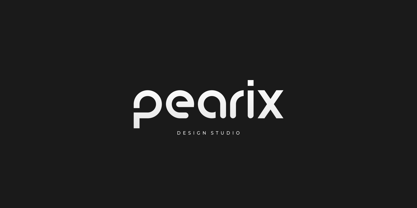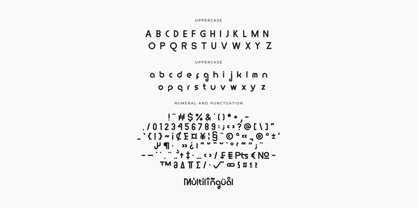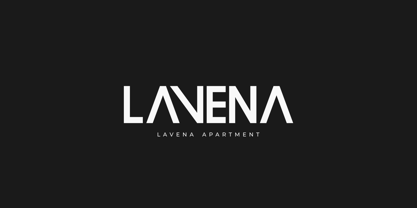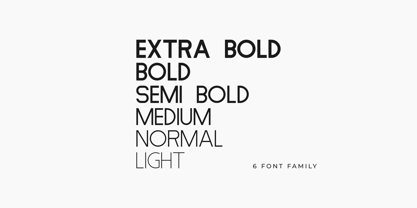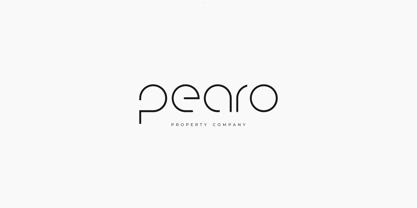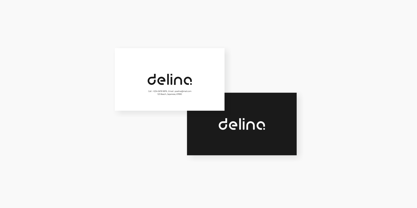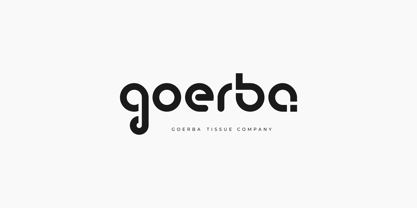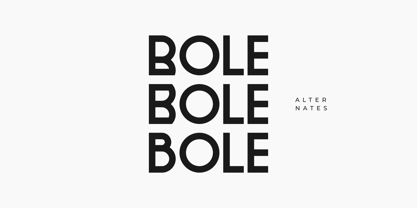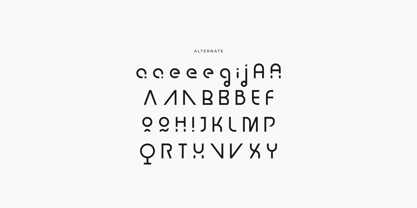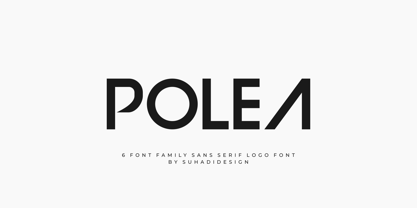
Polea
The Polea Font Family was designed by ahmad suhadi and published by suhadidesign. Polea contains 6 styles and family package options. More about this family
Polea - Modern Logo Font
In response to market demand, I created a minimalist sans serif font that is modern, elegant, and cool. Therefore, I decided to create this sans serif font. Polea is a minimalist sans serif font presented in a modern style, making it a market favorite. We keep this font elegant, classy, modern, stylish, up-to-date, and easy to use. Polea is a great choice for logos, labels, fashion, posters, banners, bags, brands, fashion, brand names, branding, quotes, and other projects. Polea is here to take your designs to the next level.
The Polea font style will make you enjoy modern design. Stay tuned for more font updates :)
Font Features:
• Uppercase
• Lowercase
• Alternate
• 6 family
• Multilingual support
• Numbers and punctuation